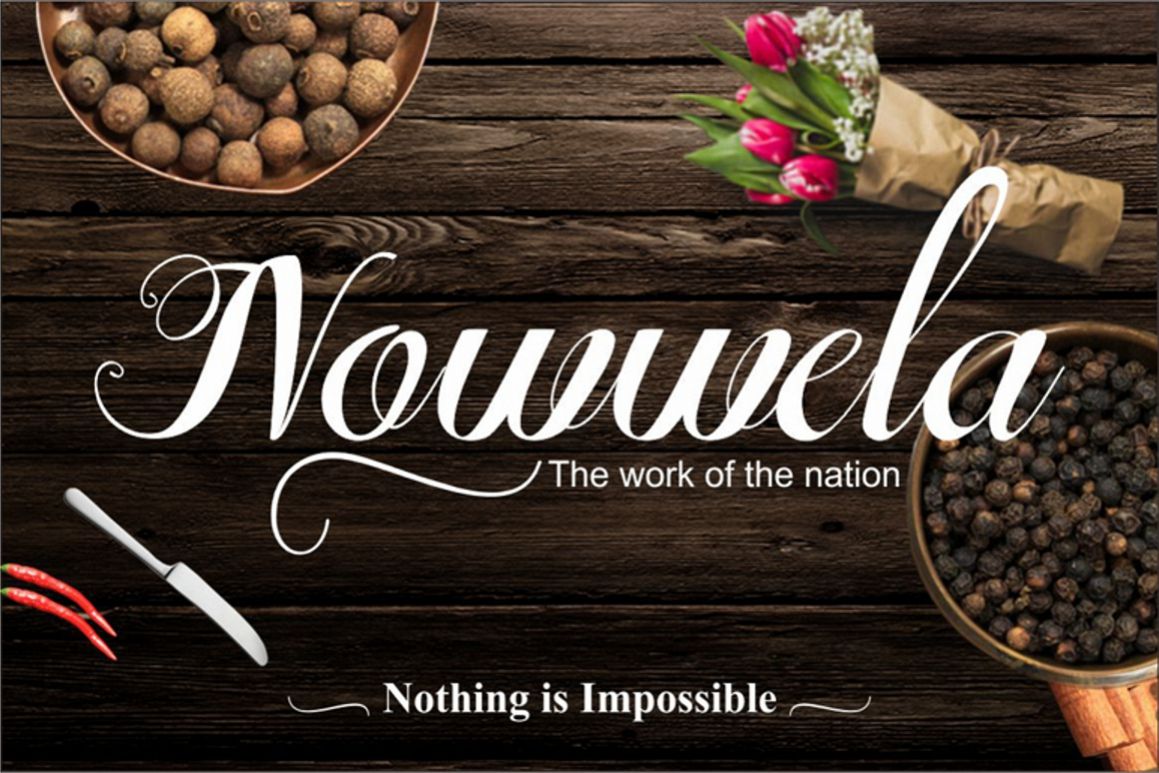
Nowwela
No words fail, there is a solution ... this time i want to introduce a work Nowwela is a written script is ready to pamper Your design is cool, modern and creative. Made with collaboration between old and modern style writing Nowwela ready to make your design more remarkable, so it becomes a beautiful piece of art. which are made with oblique style, designed with a high short, thick refined to suit a variety of collaboration style, suitable for poster design, magazine, logo design, invitations, store name, wedding, mock-ups, design clothes and others.
Basic Letter A-Z and a-z, Numbers, Punctuations
Nowwela